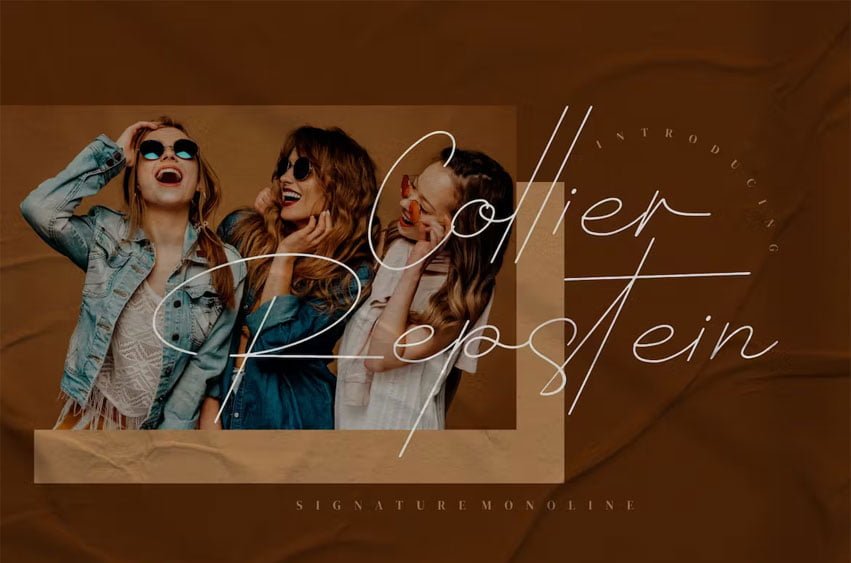
Collier Repstein Font Signature Monoline Font, from Integritype Studio, is a premium Script Font, perfect for any project that requires a distinctive, premium feel.
Ligature, Alternate & Multilingu